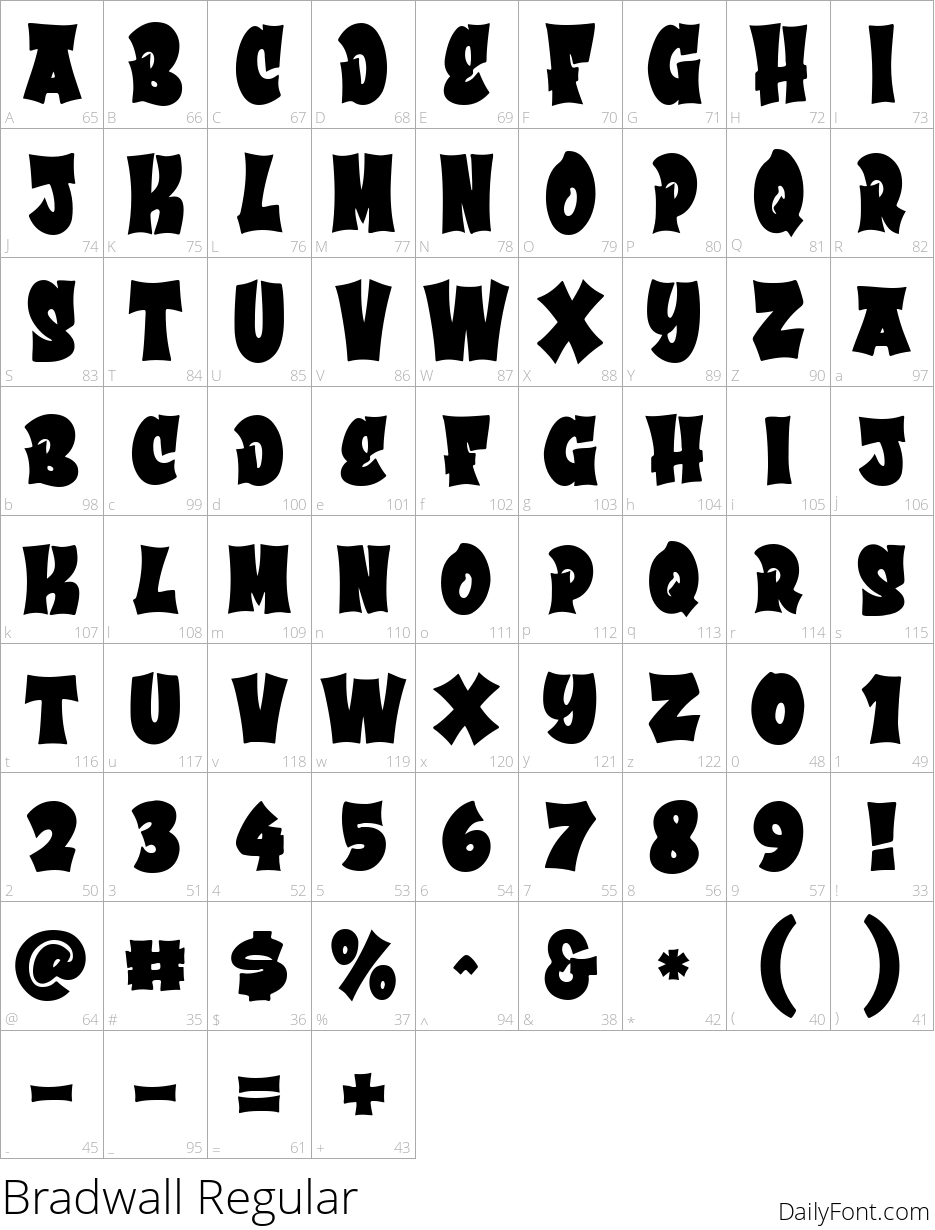
Bradwall
Searching for a bold and playful font to add some edge to your design? Look no further than a graffiti-styled display font like Bradwall! This cool and quirky font is perfect for projects that require a youthful and energetic vibe.
Ideal for use in cartoon-inspired designs, children's games, and other creative endeavors, Bradwall's unique blend of swirly lines, chunky shapes, and bold letterforms will bring a touch of fun and whimsy to your work. Whether you're designing a logo, creating an illustration, or developing a brand identity, this font is sure to make a statement.
With its playful, hand-drawn feel and wide range of expressive characters, Bradwall is the perfect choice for anyone looking to add some personality to their design. It's also great for use in headings, titles, and other display contexts where you want to grab attention and make an impact.
So if you're looking for a font that's as bold and playful as it is cool and quirky, look no further than Bradwall!